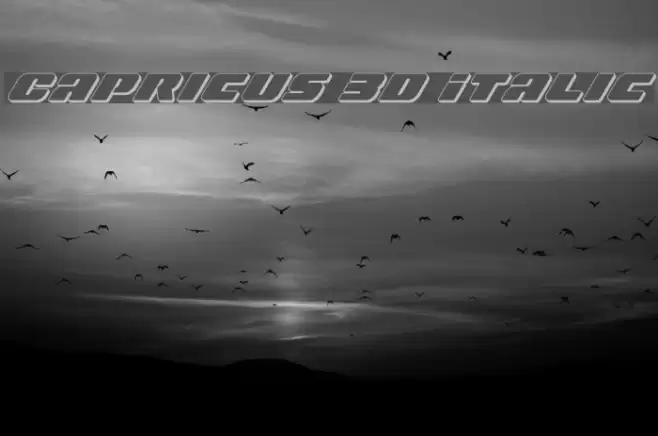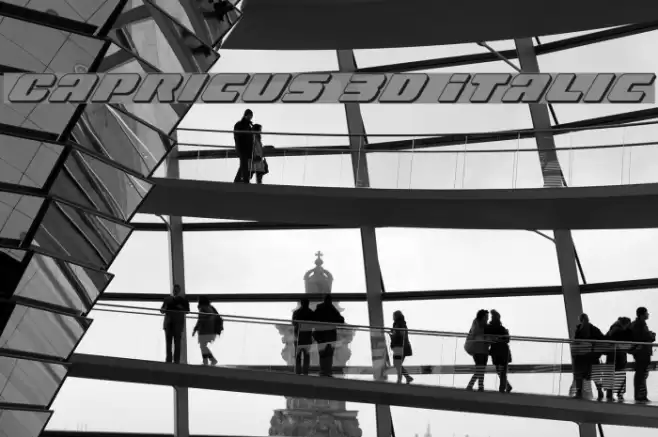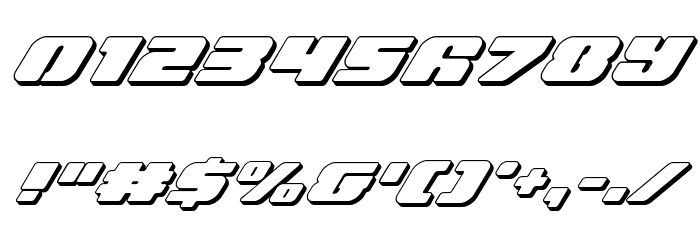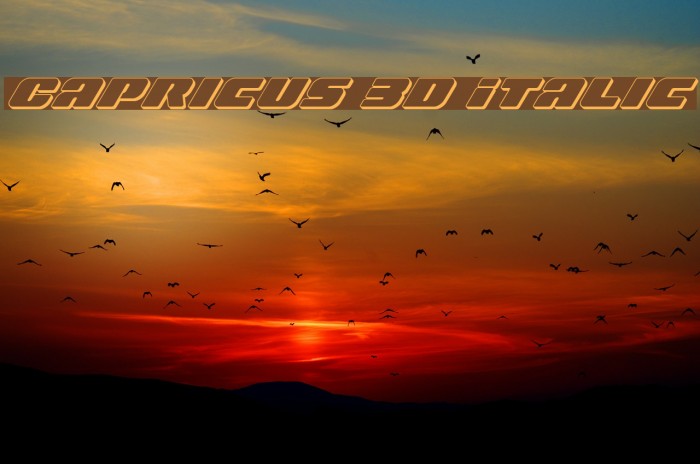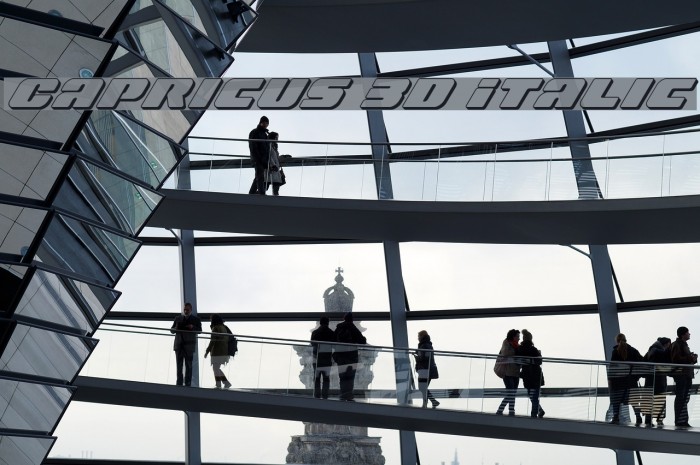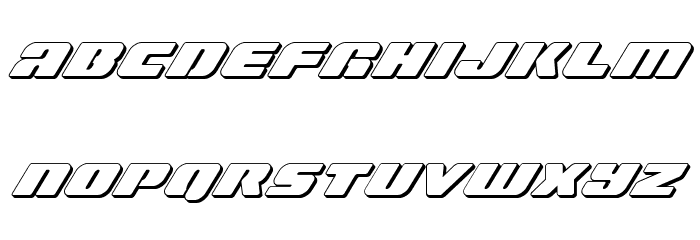
Capricus 3D Italic Font
Capricus 3D Italic Description
This font features a bold, three-dimensional style with an italic slant, giving it a dynamic and futuristic appearance. The characters are outlined, creating a sense of depth and movement. The uppercase and lowercase letters maintain a consistent geometric form, with sharp angles and clean lines. Numbers and special characters follow the same design principles, ensuring uniformity across all glyphs. The overall look is modern and eye-catching, suitable for projects that require a strong visual impact.
A bold, 3D italic font with geometric and futuristic design from Uncategorized fonts.
- Proposed Projects: Ideal for video game titles, sci-fi movie posters, tech branding, and digital artwork.